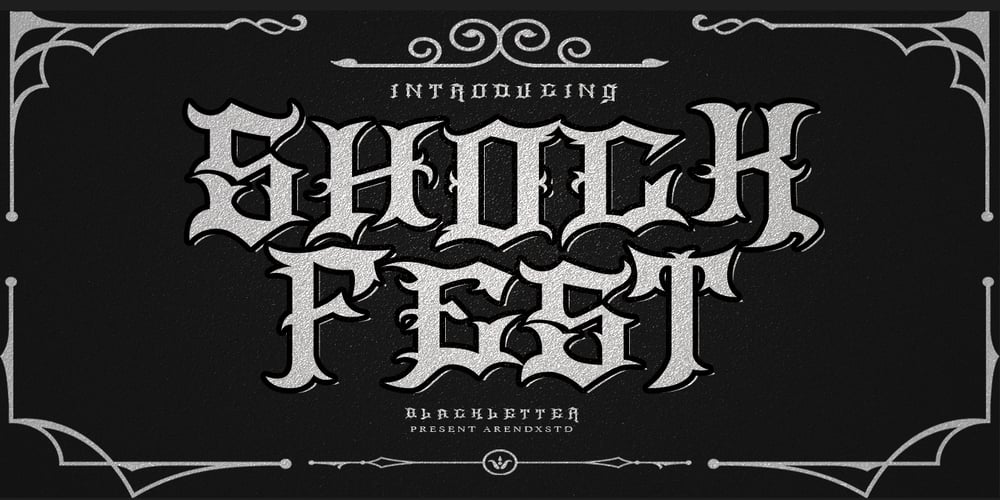
Shockfest Font Family was designed by Asep Rendi and published by Arendxstudio. Shockfest contains 2 styles and family package options. ShockFest is a very powerful Blackletter font in terms of design, has a unique and fancy character making every design project with that style look perfect.ShockFest came with opentype features such stylistic alternates, stylistic sets & ligatures good for logotype, poster, badge, book cover, tshirt design, packaging and any more.Features:-Uppercase & Lowercase-Multilingual support-Numbers-Symbols-Punctuation-Ornament